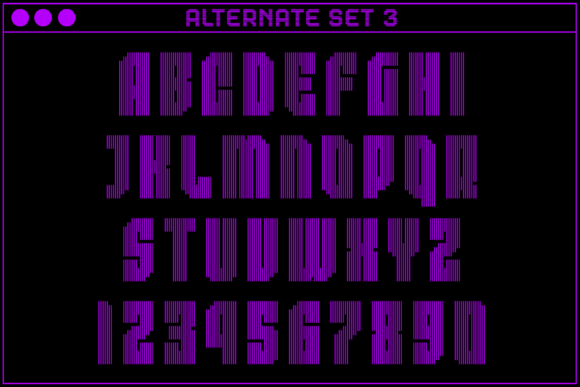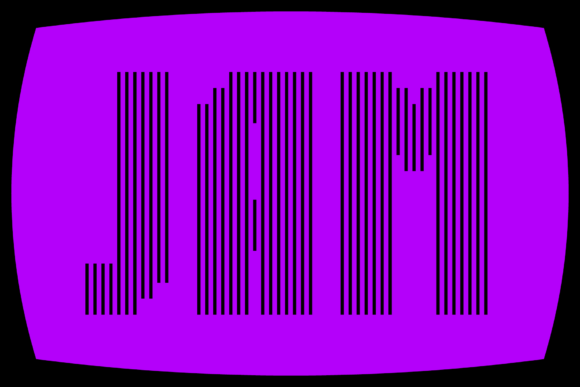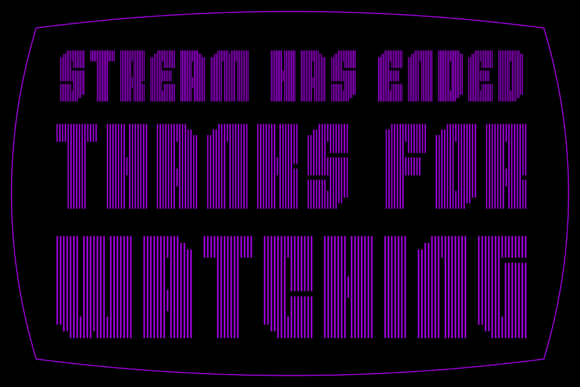
Introduction to MultiType Lines Compact 2 Font
You’ve finally nailed the concept for your latest design project – a futuristic cyberpunk poster. The colors are vibrant, the composition is spot on, but something’s missing. That’s when you remember the secret to making your design truly stand out: the perfect font. In this case, we’re talking about the MultiType Lines Compact 2 Font – a game-changing, pixelated decorative font that adds a unique touch to your designs.
Key Features of MultiType Lines Compact 2 Font
- Compact and clean design, suitable for a wide range of applications, from logos to body text
- Unique characteristics: bold and elegant lines, making it perfect for modern and minimalist designs
Honest Review: MultiType Lines Compact 2 Font
As a designer, I’m always on the lookout for high-quality design resources that can elevate my creative projects. The MultiType Lines Compact 2 Font is one such resource that caught my attention.
Here’s what works well about this font: ✨ It’s incredibly versatile, with a wide range of styles and weights that can be used for various design applications. The font is also highly legible, making it perfect for body text and headings. Additionally, it’s available for free download, which is a major plus.
- High-quality design that’s perfect for print and digital projects
However, there are a few limitations to consider: ⚠️ The font may not be suitable for very small text sizes, and the number of styles and weights is somewhat limited compared to other fonts in its class.
Overall, I’m impressed with the MultiType Lines Compact 2 Font. While it may not be perfect, it’s a solid addition to any designer’s toolkit, and its high-quality design and free download option make it a great resource for creative projects.
The MultiType Lines Compact 2 Font is suitable for a variety of design projects, including:
- UI/UX design